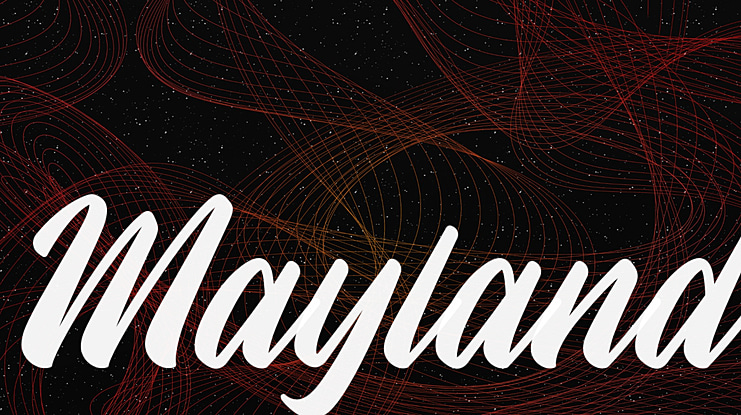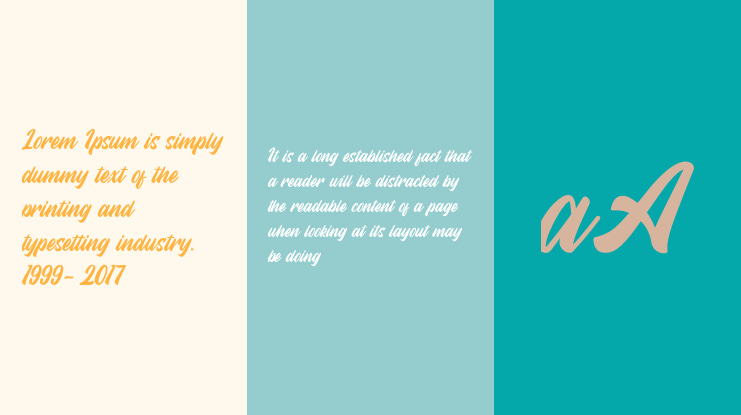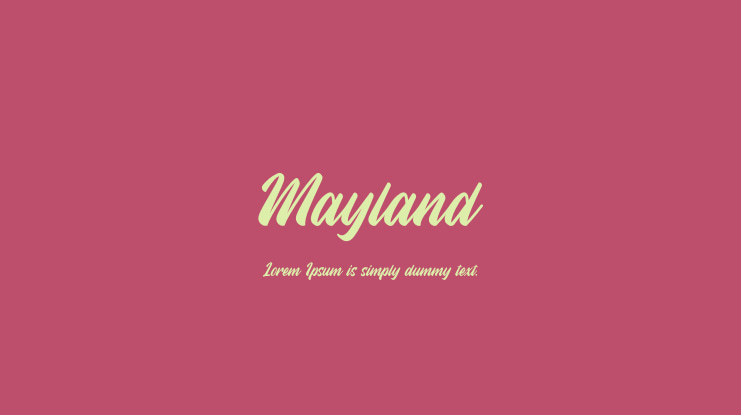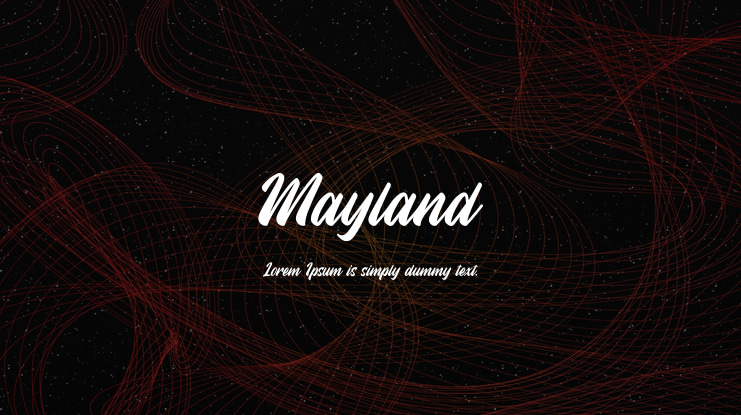
Mayland Font
Mayland is a well-balanced and refined script font. It has a classy, elegant and modern look that can be used for logos, branding, invitations, stationery, wedding designs, social media posts, and much more!
Make fonts more beautiful with Stylistic alternates and also Multilingual support